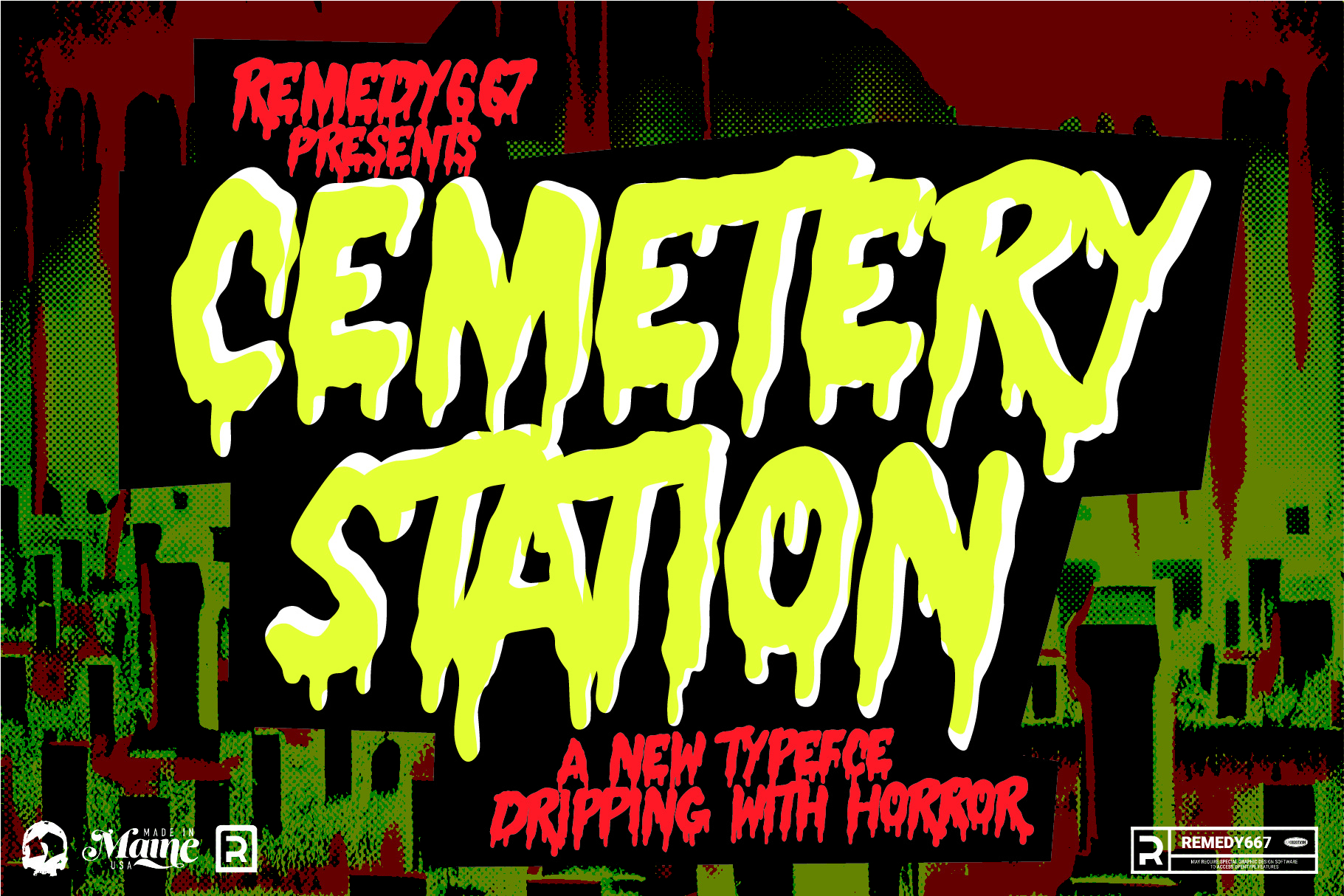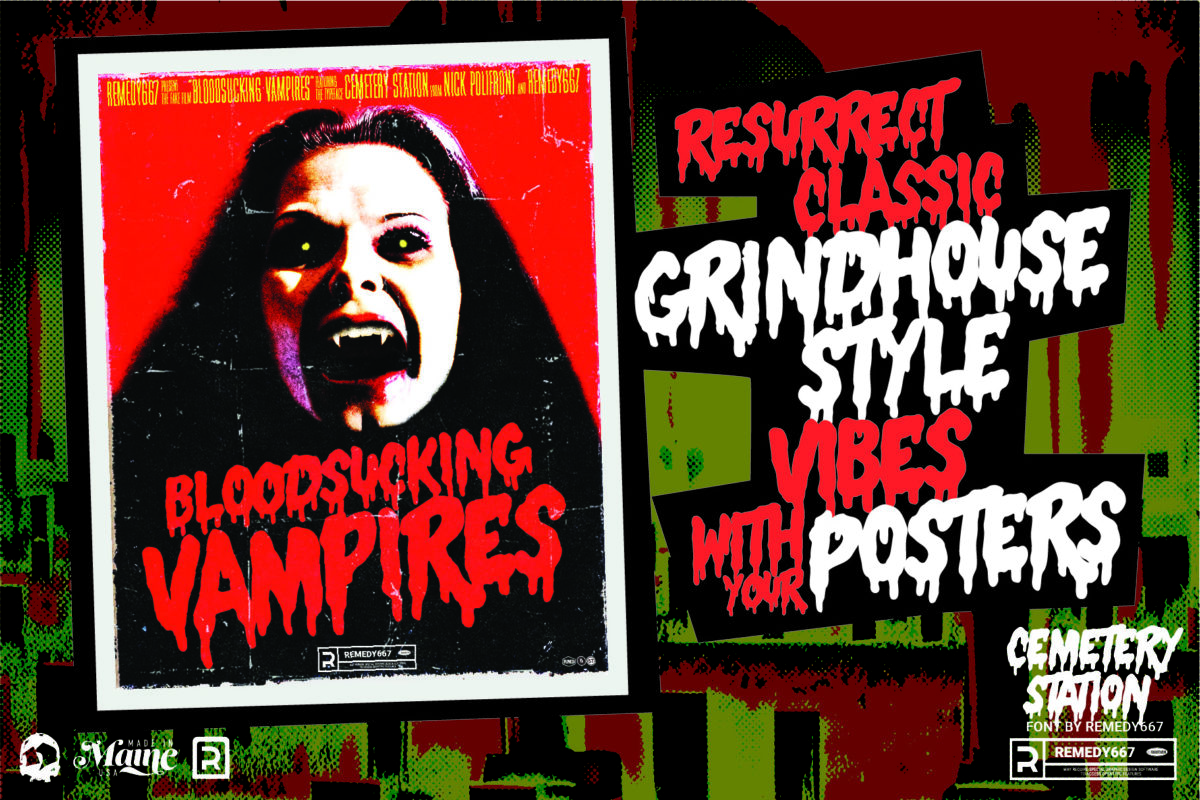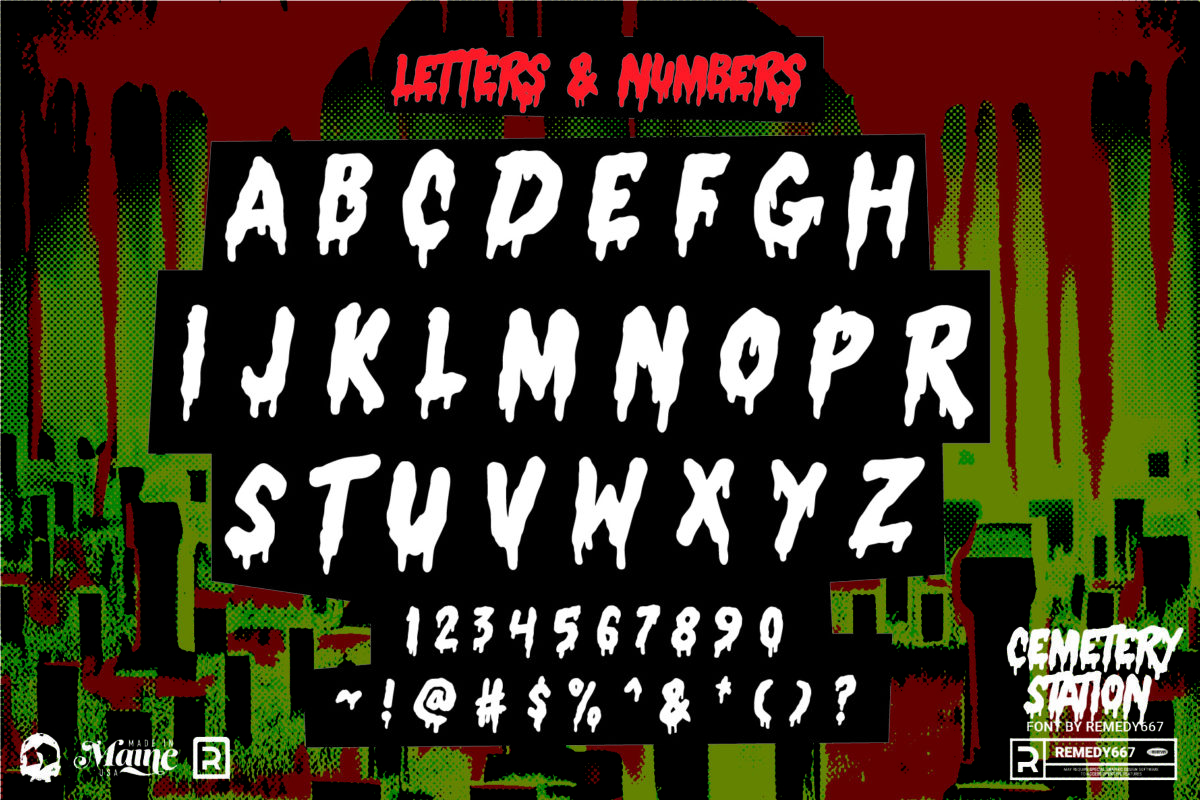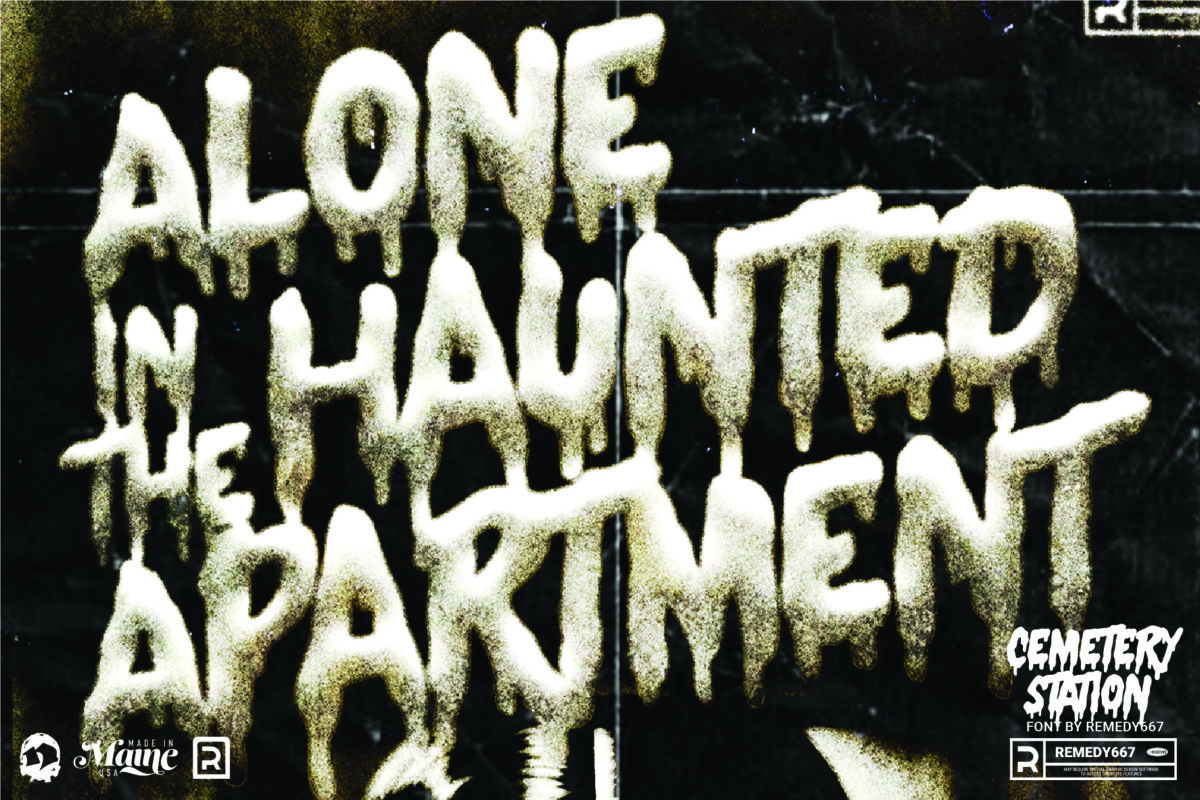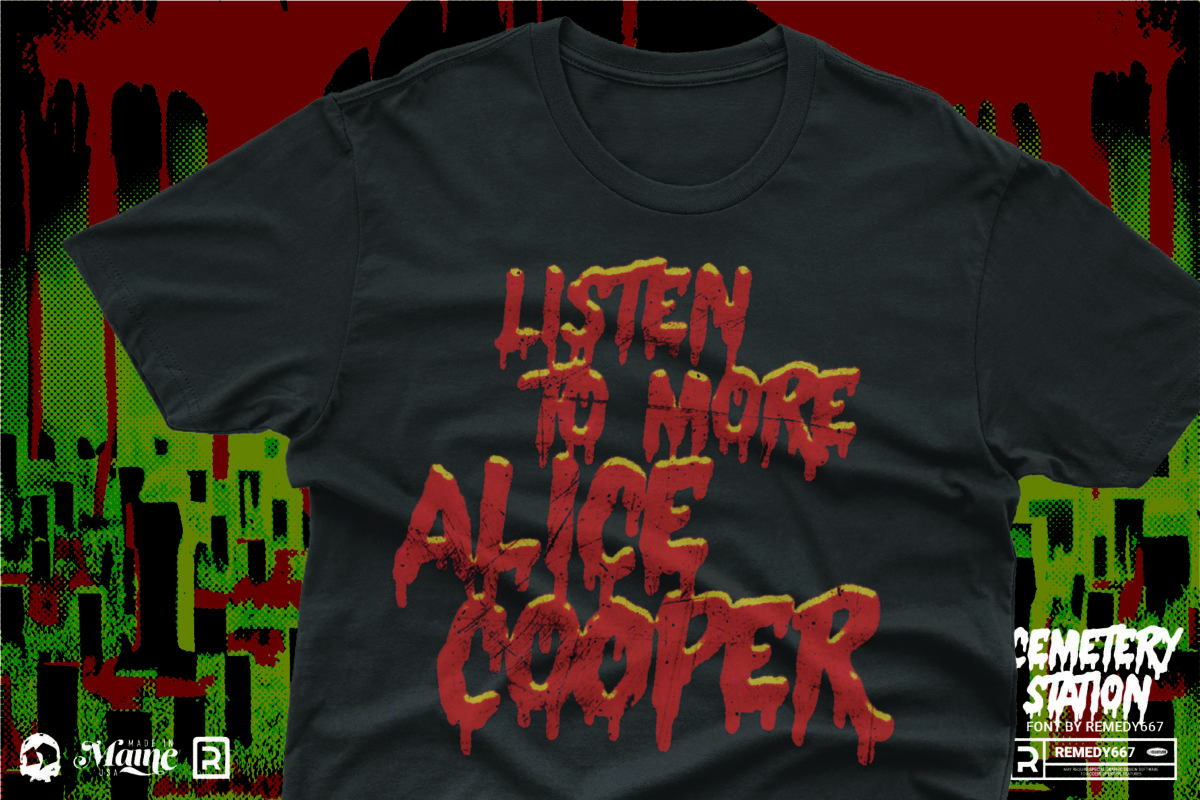
Cemetery Station
Get creative with Cemetery Station! This spooky new font from Remedy667 is dripping with style and perfect for any horror project. With its unique blend of dripping style and contextual alternates for numbers and letters, this font is perfect for all things eerie.
Features
- Add an extra layer of spooky to your design with contextual alternates